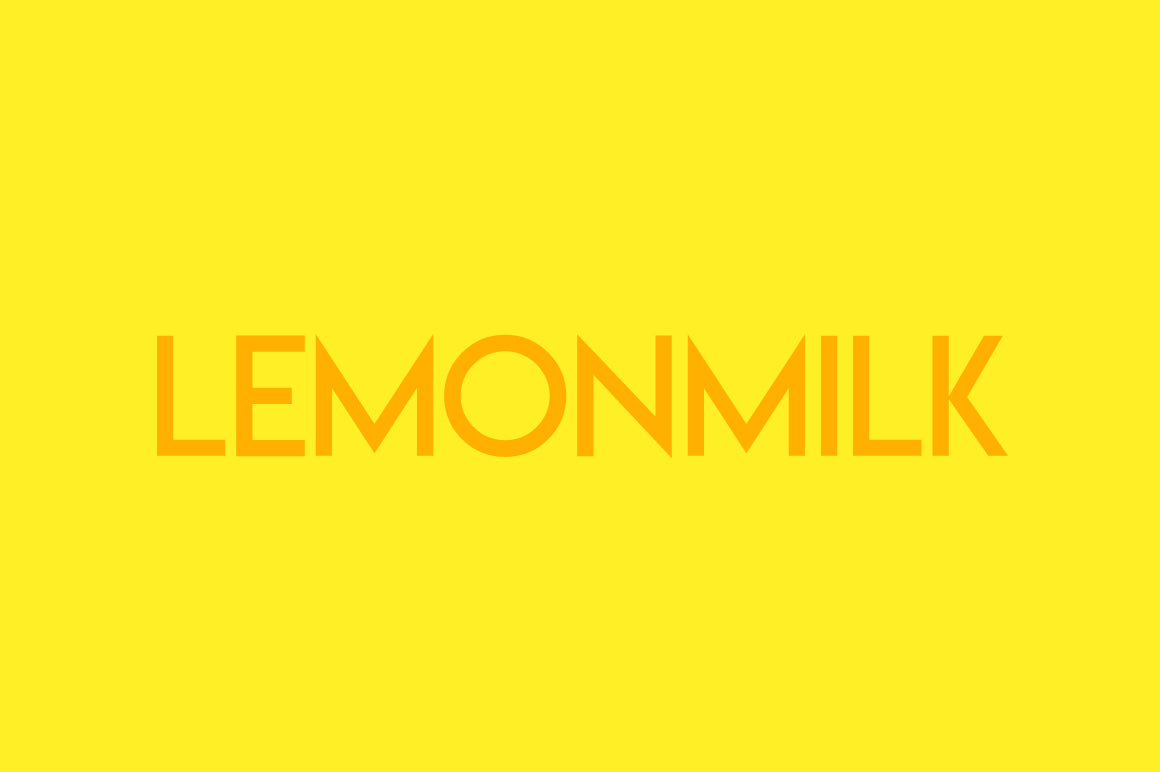
Free Lemon Milk Clean Sans Serif Font
Today we're glad to feature this free lemon milk clean sans serif font. This is a downloadable typeface file brought to you by Dafont. Amaze your fellow designers and create stunning designs with this beautiful font.